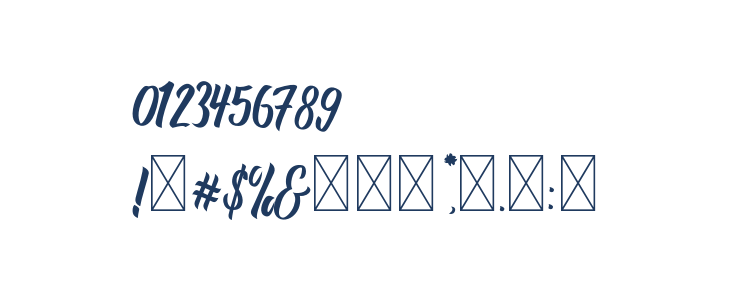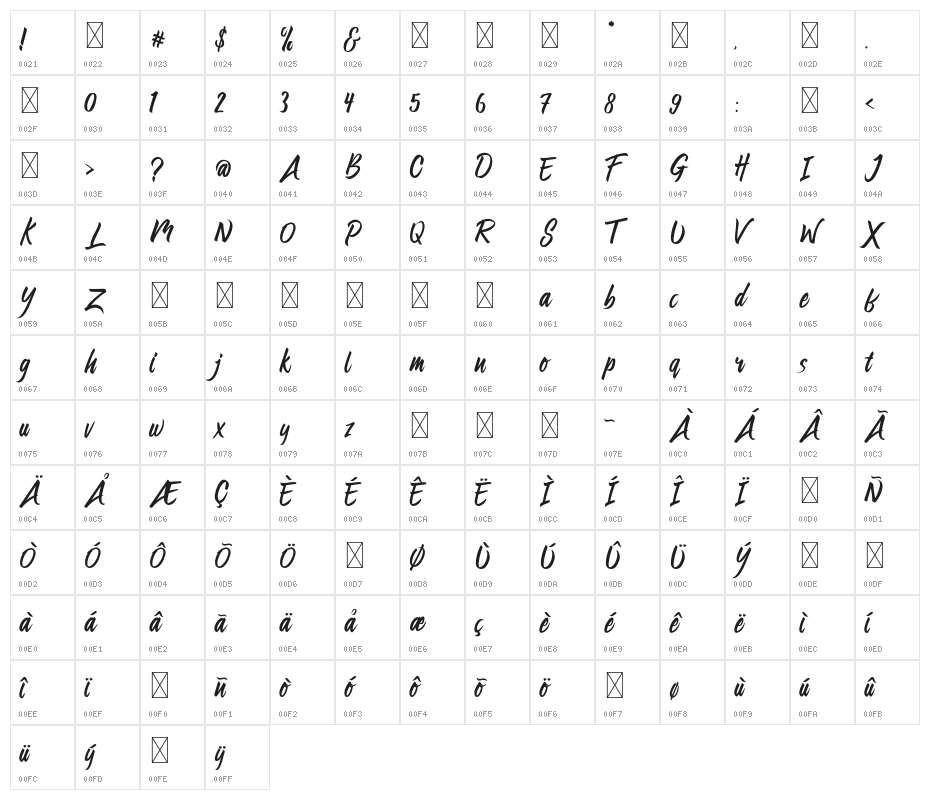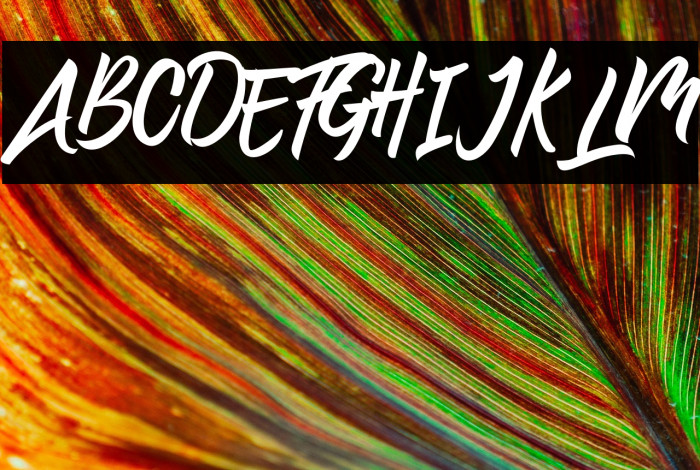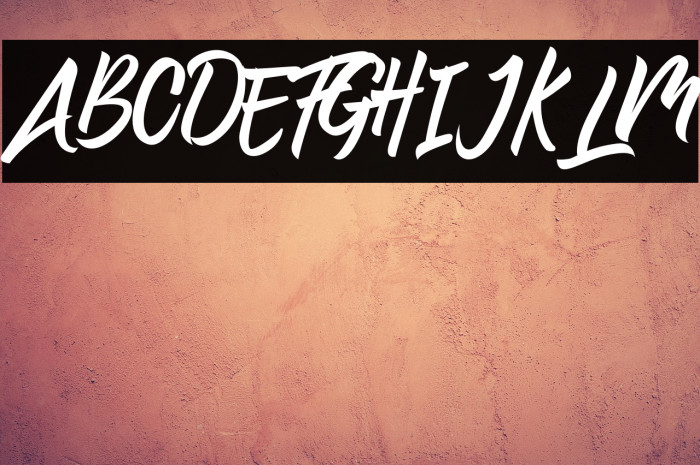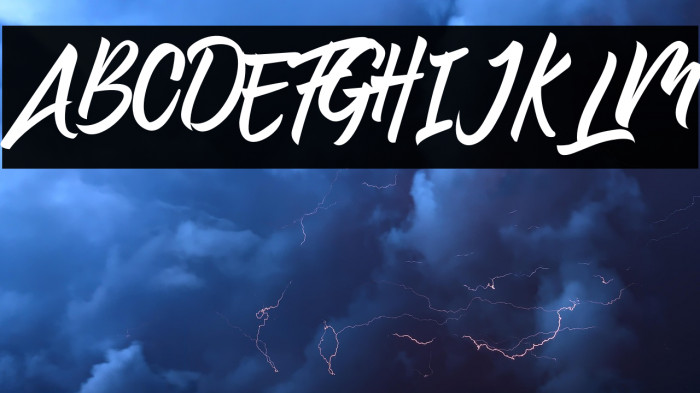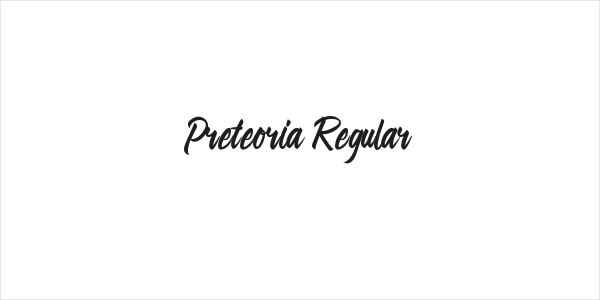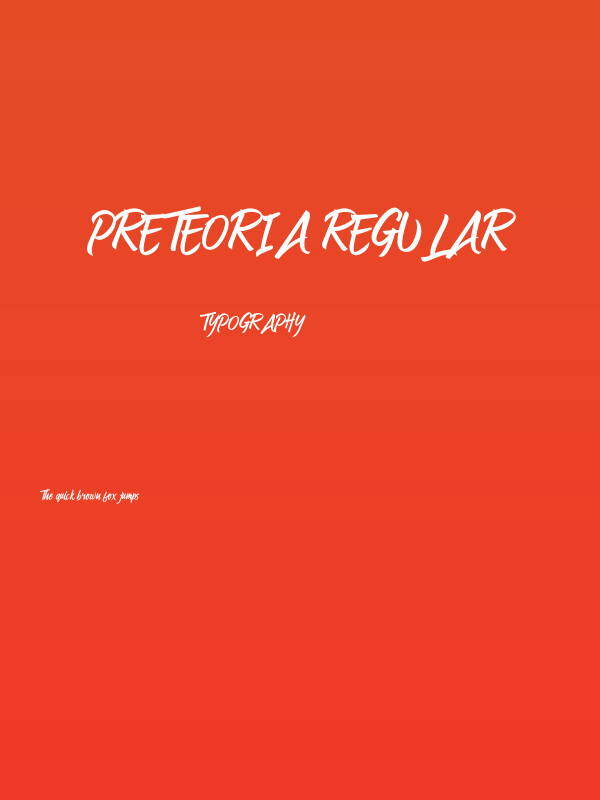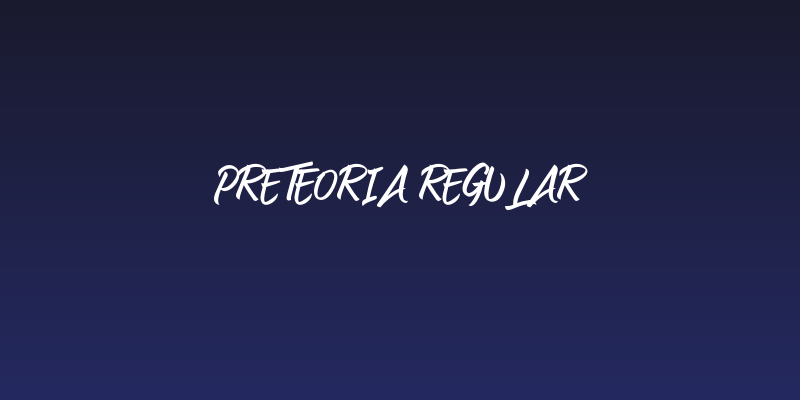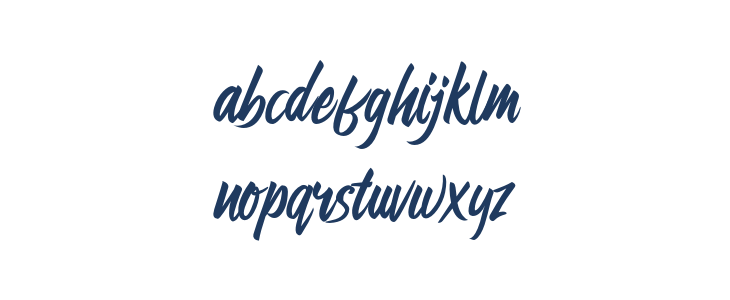
Preteoria Regular Font
Preteoria Regular Description
This font features a dynamic and flowing script style, characterized by its bold and expressive strokes. The uppercase letters are elegantly crafted with sweeping curves and a slight slant, giving a sense of movement and fluidity. The lowercase letters maintain a consistent style, complementing the uppercase with their own graceful loops and connections. Numbers are designed with the same attention to detail, ensuring readability while maintaining the overall aesthetic. Special characters are included, offering versatility for various uses. The font's design is both modern and artistic, making it suitable for creative projects.